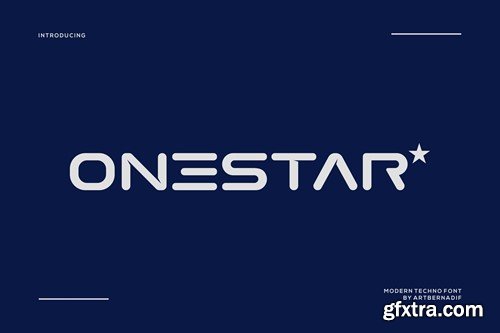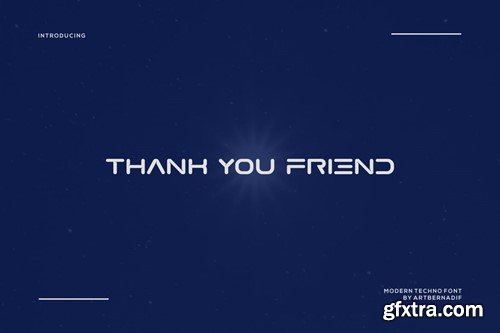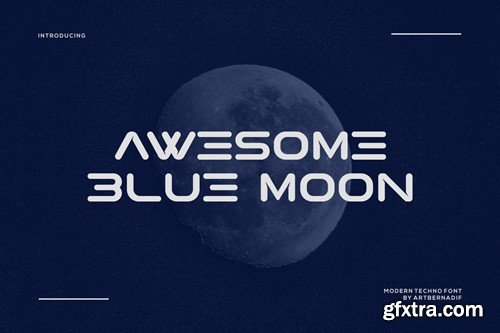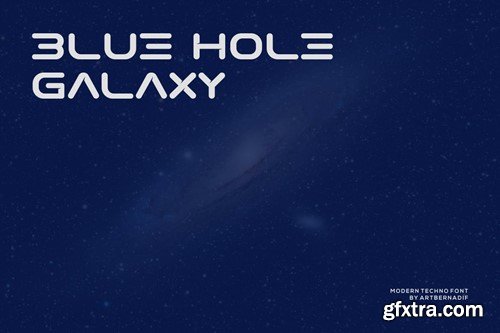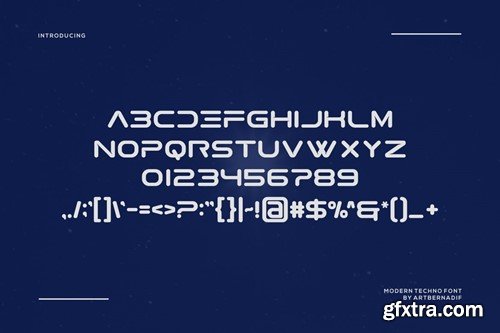
onestar - 现代 techno 字体 7747KWC
Onestar - Modern Techno Font
Introducing our new product Onestar Font Modern Techno Font Onestar Font Modern Font is a bold and authentic display font. The font is suitable for any branding project like logo, t-shirt printing, esport, and many more. outstanding in a wide range of contexts. availlable